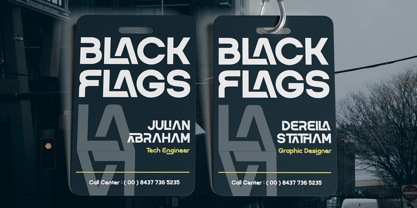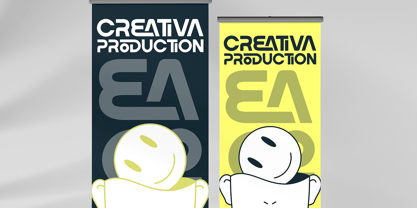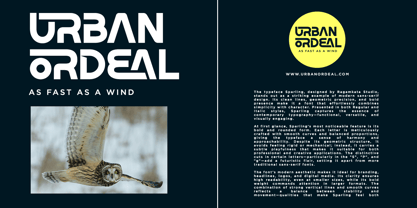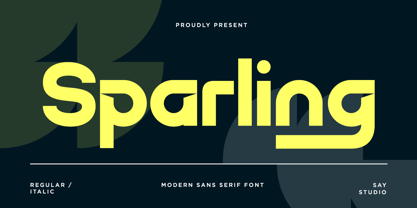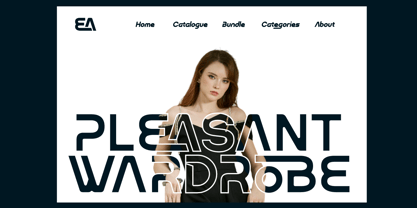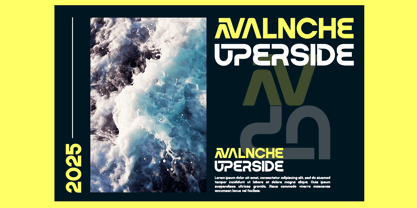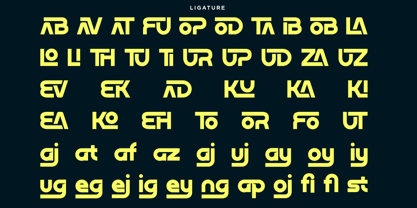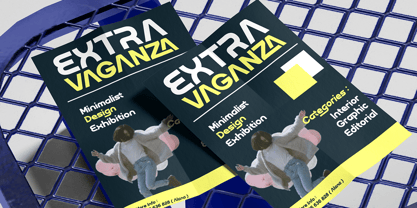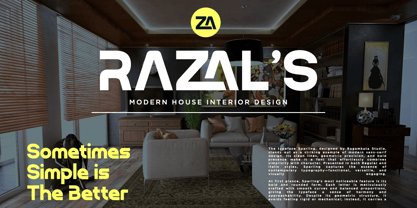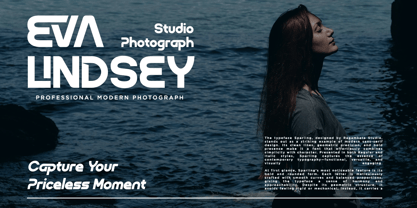
SS Sparling
The SS Sparling Font Family was designed by Mussyayin and published by Say Studio. SS Sparling contains 2 styles and family package options. More about this family
Sparling is a futuristic modern sans serif font that combines geometric precision with smooth rounded forms, creating a distinctive typeface that feels innovative, clean, and highly versatile. Its unique ligatures and custom letter constructions deliver a strong visual identity while maintaining excellent readability, making it perfect for designers who want bold typography with a contemporary edge.
Designed for branding and creative projects, Sparling effortlessly adapts to logos, posters, editorial layouts, websites, packaging, fashion campaigns, technology startups, UI design, architecture presentations, and social media graphics. The balanced proportions and stylish alternates allow every composition to appear modern, premium, and memorable.
Featuring Regular & Italic styles, multilingual support, numbers, punctuation, symbols, and an extensive collection of ligatures, Sparling offers maximum creative flexibility for professional designers. Whether you're building a futuristic brand identity or creating minimal editorial layouts, this typeface delivers a sophisticated aesthetic that stands out across both print and digital media.
• Regular and Italic
• Stylistic Ligatures
• Uppercase and Lowercase
• Number, Symbol, and Punctuation
• Multi Language Support